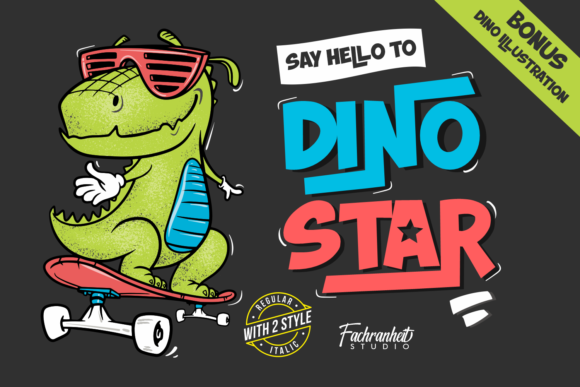
Get Ready to Unleash Your Inner Child with Dino Star Font
Do you remember the excitement of creating a handmade card for your favorite teacher or parent? The hours spent rummaging through crayons, markers, and colored pencils to bring your imagination to life? As a designer, you’ve probably had similar moments where you wanted to infuse your work with that same sense of playfulness and authenticity.
That’s where Dino Star Font comes in – a cute and colorful display font designed to bring a touch of whimsy to any project. Perfect for children’s activities, school projects, or anything that needs a dash of fun, this chunky lettered font is sure to make your designs come alive! By adding Dino Star Font to your creative arsenal, you’ll be able to tap into that sense of imagination and bring a smile to your audience’s faces.
Dino Star Font Key Features
- Font Family: Dino Star Font is a unique, hand-drawn font that features a mix of bold and playful characters.
- Unique Characteristics: The font features a distinctive, hand-crafted look with irregular shapes and varying line widths, adding a touch of personality to any design.
- Character Set: Includes a comprehensive set of characters, including uppercase and lowercase letters, numbers, punctuation marks, and special symbols.
Dino Star Font Review
I recently had the chance to play around with the Dino Star Font, and I’m here to share my honest thoughts on it.
- The unique blend of modern and retro elements is quite striking, making it perfect for projects that require a fun, nostalgic vibe.
- The font’s boldness and expressiveness are well-suited for headings and titles, where you want to grab the reader’s attention.
- The set includes a decent number of styles and weights, which is great for versatility and experimentation.
- The font’s complexity can be overwhelming, making it challenging to read in smaller sizes or at a distance.
- The letterforms can feel a bit inconsistent, which may affect the overall legibility and cohesion of the design.
- The font may not be the best choice for body text or large blocks of text, as it can be tiring to read.
The Dino Star Font is a bold and eye-catching choice, perfect for projects that require a fun and playful touch. While it may have some limitations, it’s a great addition to any designer’s toolkit. I’d recommend using it for headings, titles, and other design elements where you want to make a statement. Just be mindful of its limitations and use it thoughtfully.
Dino Star Font Practical Application Guide
Getting the Most Out of Dino Star Font
Use Dino Star Font for creative projects, such as:
– Retro-themed designs
– Children’s products (e.g., toys, books, or games)
– Vintage-inspired graphics
For optimal results, experiment with different font sizes, colors, and combinations with other fonts.